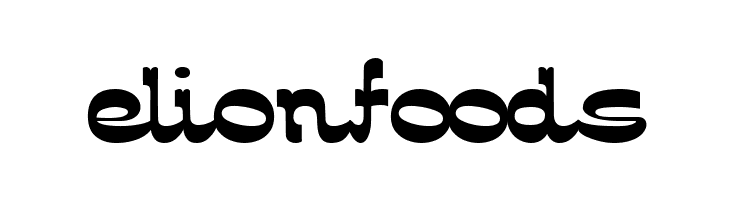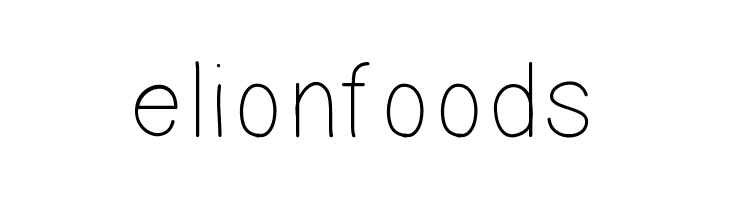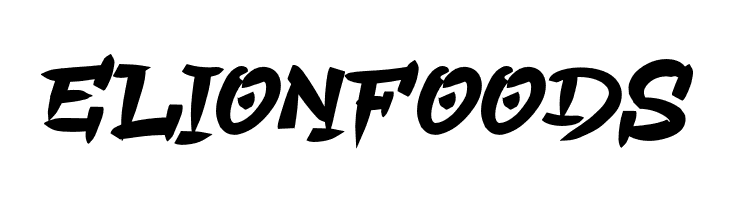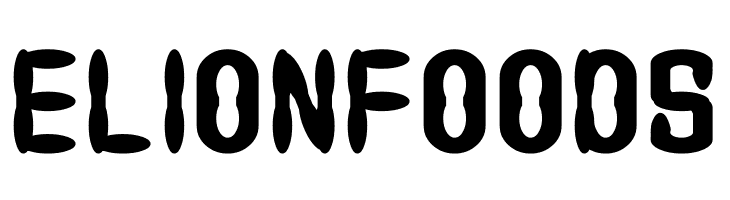
A bold, modern sans-serif font with strong, uniform strokes and high legibility.
A bold, geometric font ideal for impactful headlines.
A clean, modern typeface with consistent stroke width and excellent readability.
A modern, geometric sans-serif font with clean lines and balanced spacing.
A modern, clean sans-serif font with excellent readability and balance.
A clean, modern sans-serif typeface with semi-bold weight and excellent readability.
An abstract, geometric font with intricate patterns and high contrast.
A whimsical, bird-themed decorative font with bold, angular lines and contrasting patterns.
A bold, playful font with wide, rounded characters and a whimsical style.
A whimsical and artistic collection of decorative characters and illustrations.
A decorative, hand-drawn font with a distressed, textured effect.
A futuristic, angular font with bold, geometric shapes.
A minimalist, handwritten-style font with a casual and approachable feel.
A bold, angular blackletter-style font with dramatic strokes and intricate details.
A bold, blackletter-inspired font with sharp, angular lines and intricate detailing.
A bold, 3D italic font with a filled interior and thick outlines.
A bold, 3D-filled font with a vintage yet modern geometric style.
A bold, 3D italic font with a modern, dynamic style.
A bold, 3D font with a geometric, blocky style and strong outlines.
A bold, italic font with sharp angles and a modern, dynamic style.
A bold, geometric font with strong, angular lines and a modern aesthetic.
A bold, geometric font with a digital, pixelated style.
A bold, dynamic font with sharp, angular strokes and a sense of energy.
A bold, dynamic font with sharp, angular edges and a brush-like appearance.
A fluid, cursive font with an elegant and sophisticated style.
A bold, playful font with rounded, bubbly characters.
A bold, cracked texture font with a fragmented, distressed appearance.
A bold, striped font with a modern, industrial aesthetic.
A bold, decorative font with diagonal striped patterns for a modern, edgy look.